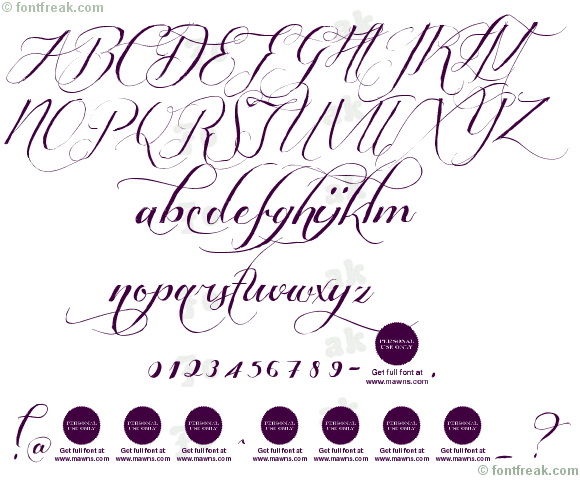
Shipped Goods 2 (Personal Use)
About Shipped Goods 2 (Personal Use)
Shipped Goods 2 (Personal Use) by Mans Greback is a stunning script font that exudes elegance and charm. As a decorative typeface, it features beautifully flowing letterforms with intricate flourishes, making it an ideal choice for projects that require a touch of sophistication. The stroke weight is consistent, creating a harmonious visual balance, while the contrast between thick and thin lines adds a dynamic quality to the text. The spacing is generous, which enhances readability and allows the decorative elements to shine without overwhelming the design.
This font is versatile and can be used effectively in various contexts. It is particularly well-suited for wedding invitations, where its romantic character can set the perfect tone for a special day. Additionally, Shipped Goods 2 can elevate movie posters, giving them an artistic flair that captures attention. For restaurant menus, this font can create an inviting atmosphere, making the dining experience feel more luxurious. Content creators will also find it valuable for social media graphics, as its unique style can help posts stand out in crowded feeds.
The target audience for this font includes graphic designers, small business owners, and content creators who seek to enhance their projects with a distinctive typeface. Whether you are designing promotional materials or personal projects, this font allows for creative expression that can resonate with your audience.
What sets the Shipped Goods 2 (Personal Use) font apart is its captivating elegance combined with a touch of whimsy. Its ability to convey emotion and charm makes it a favorite among designers looking to create memorable and impactful visuals. With the Shipped Goods 2 (Personal Use) font free download, you can easily incorporate this exquisite typeface into your work, elevating your designs to new heights.